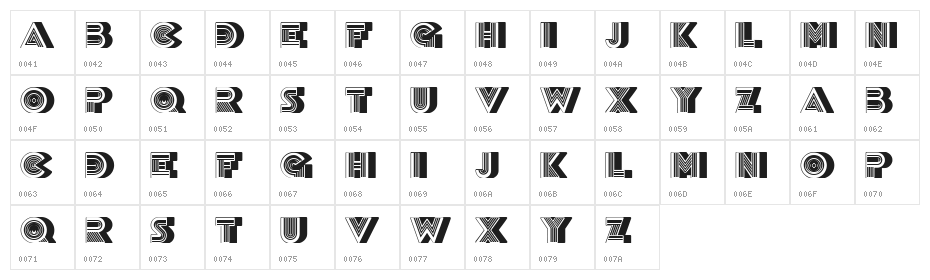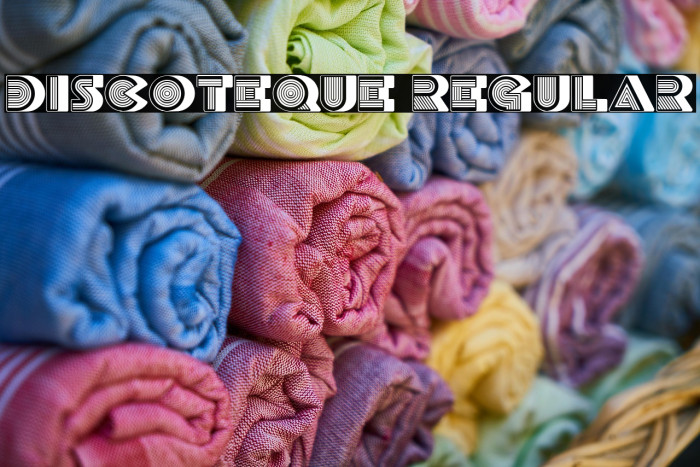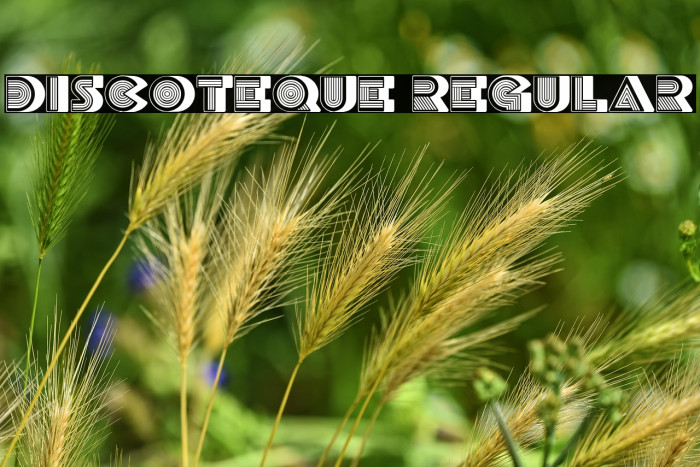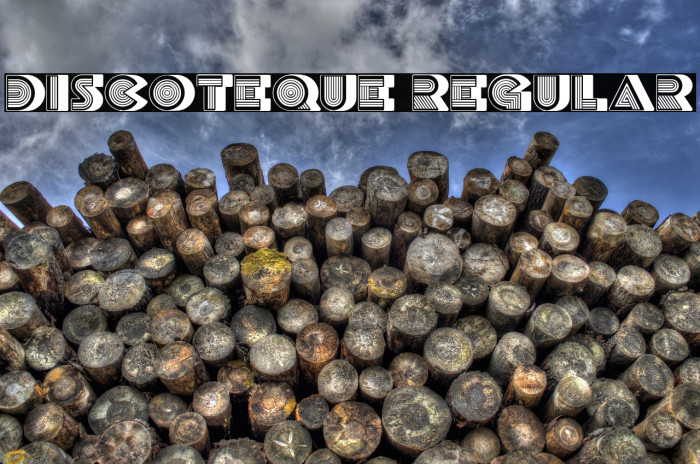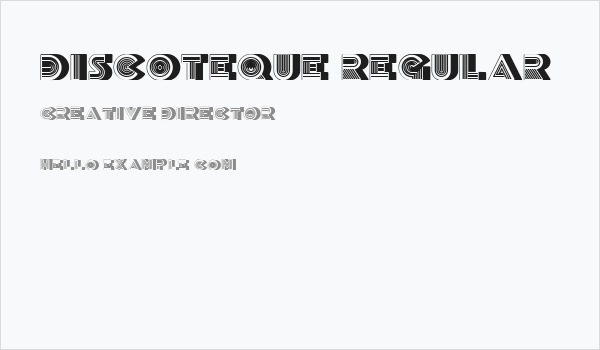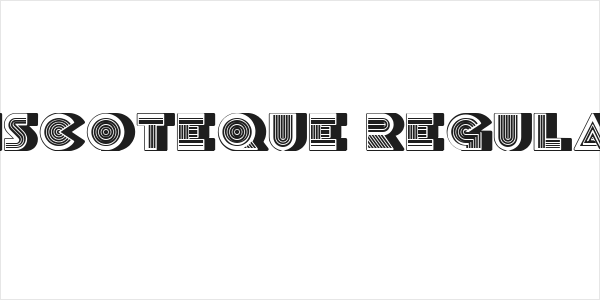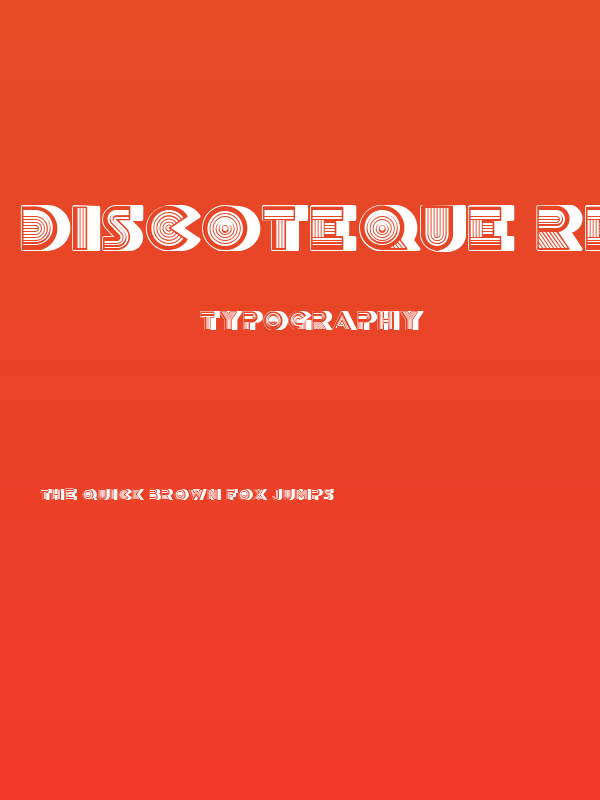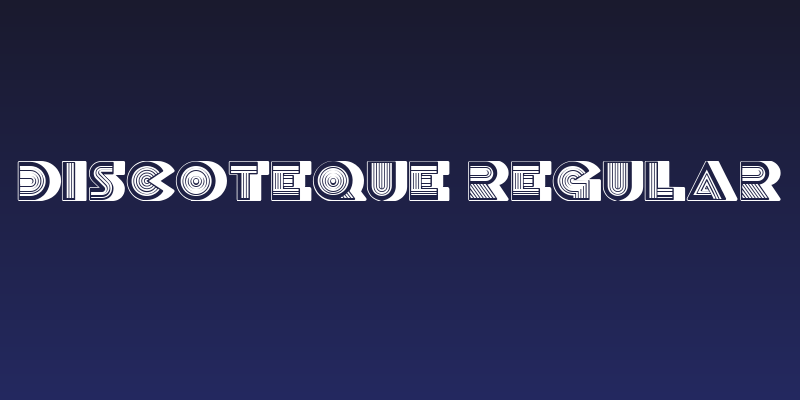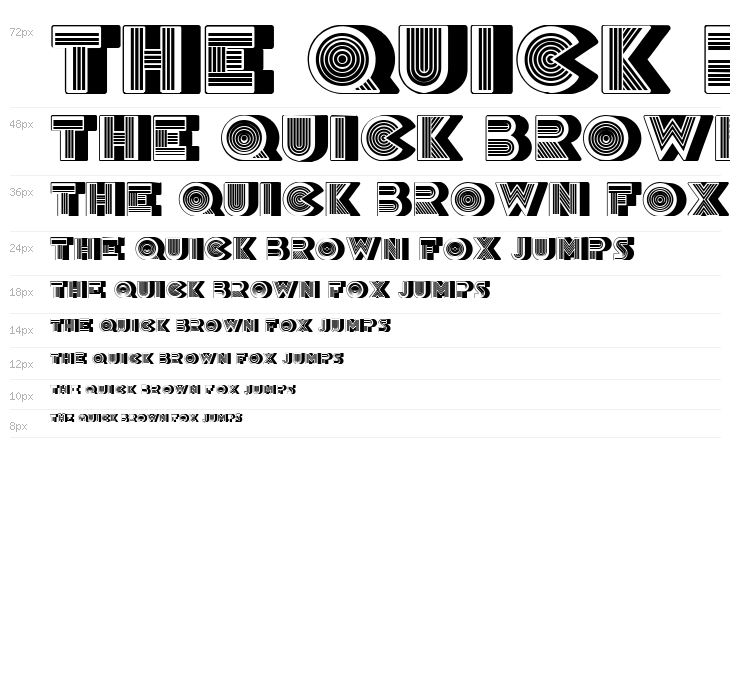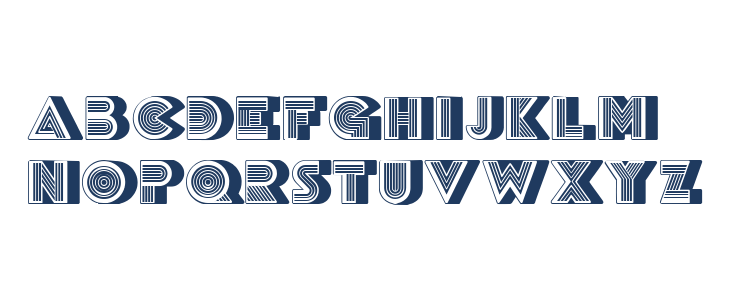
Discoteque Regular Font
Discoteque Regular Description
This font features a bold, geometric design with a distinct retro flair. Each character is crafted with a series of parallel lines that create a sense of depth and movement, reminiscent of disco-era aesthetics. The uppercase letters are particularly striking, with their thick, blocky forms and intricate line patterns. The font's unique style makes it ideal for projects that require a touch of vintage charm and bold visual impact. Its decorative nature is perfect for creating eye-catching headlines, posters, and branding materials that stand out.
| Overall Style | Vintage |
| Use Case | Headlines, Posters, Branding |
| Proposed Projects | Ideal for retro-themed posters, event flyers, branding, and eye-catching headlines. |